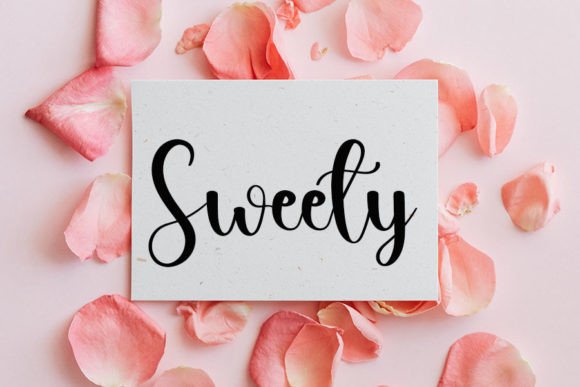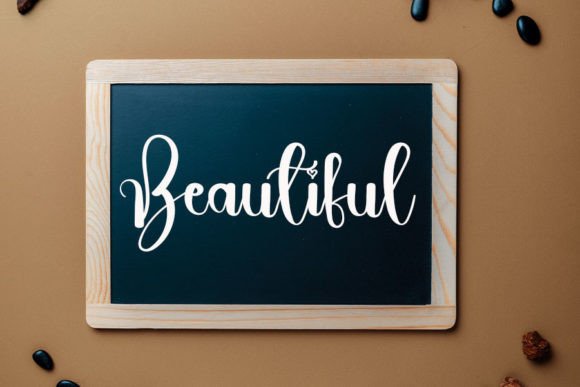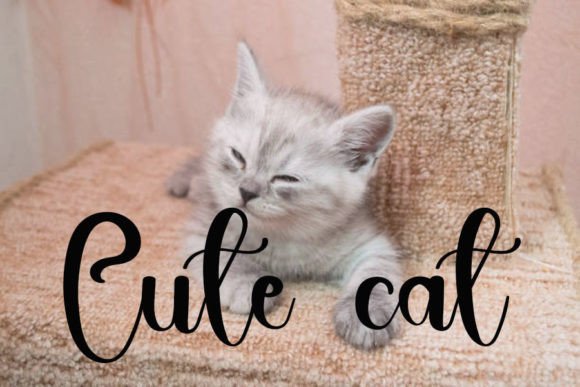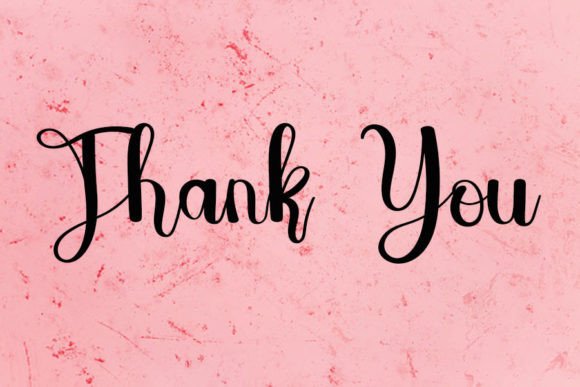
About Sweety Font
Hello Kitty is a friendly handwritten font carefully created with a touch of elegance. Clean and a little bit quirky, this font is the perfect fit for all of your logos, branding, social media posts, and crafty DIY projects.